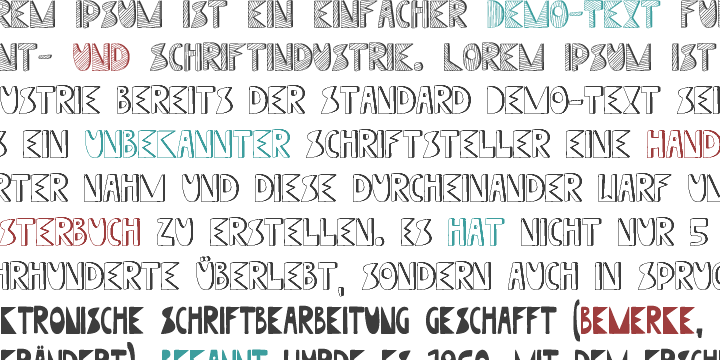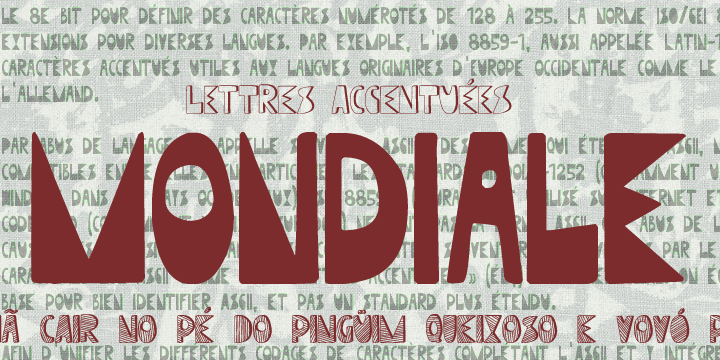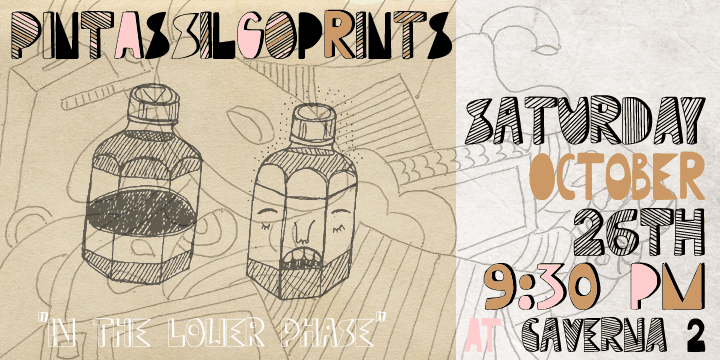
MONDIALE
Mondiale is a kids font family. This typeface has two styles and was published by PintassilgoPrints.
Mondiale is a three-flavor unicase family with a tasty hand drawn feel.
It contains uppercase letters and uses the lowercase as variations, providing flexibility for your designs.